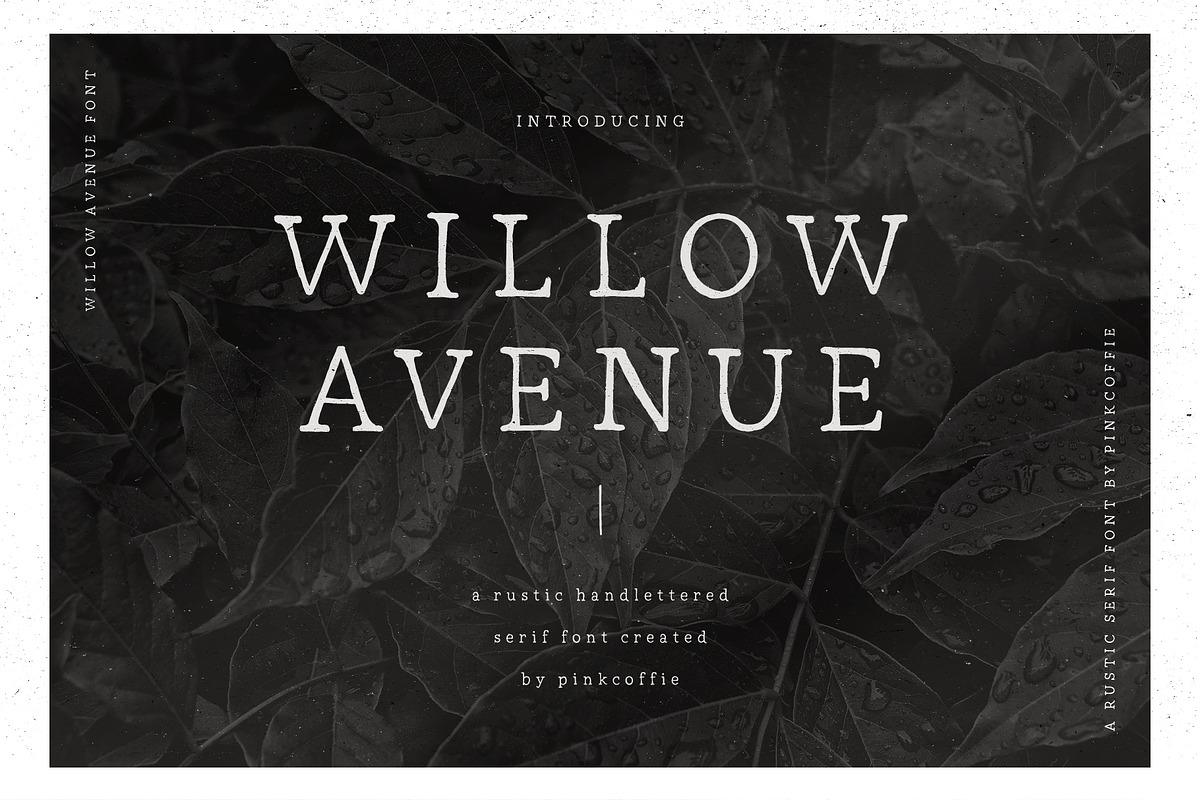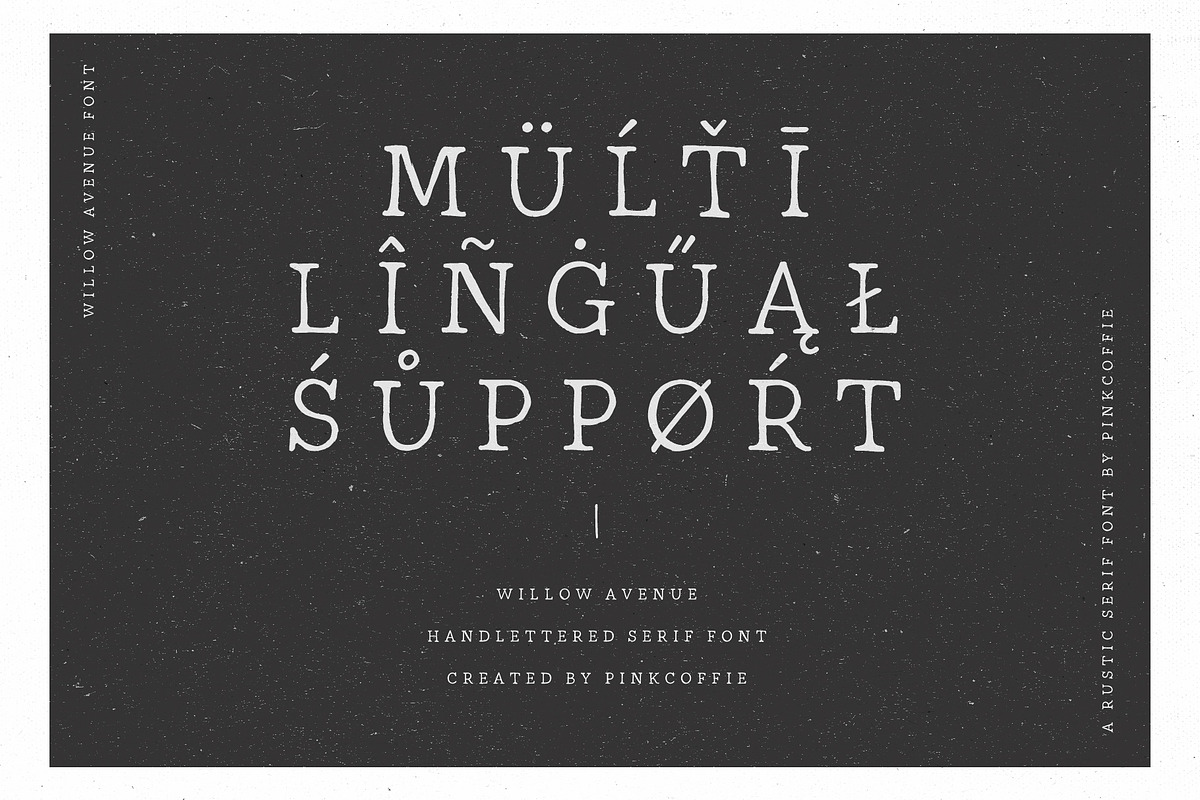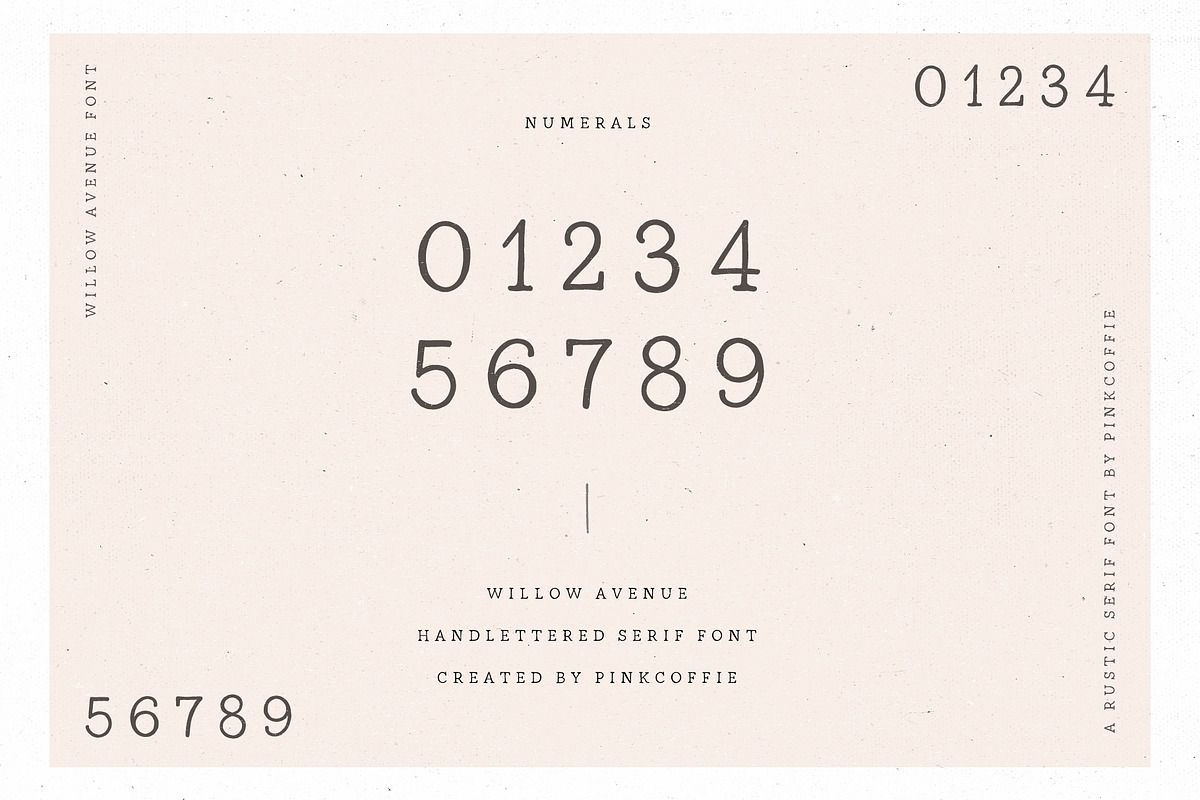
Willow Avenue | Hand lettered Serif
Say hello to Willow Avenue!
A hand lettered serif font inspired by beautiful handmade ceramics and rustic stationery. ♥
Willow Avenue includes uppercase, lowercase, numerals, punctuation and multilingual support.